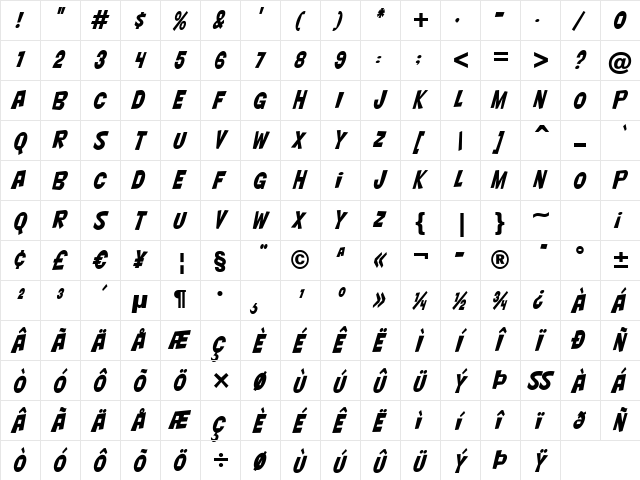
Nightclub BTN Cn Oblique Free Font
Nightclub BTN Cn Oblique
Complete Nightclub BTN Cn Oblique glyph index. Displaying only characters natively supported by Nightclub BTN Cn Oblique font.
Design Context for Nightclub BTN Cn
Nightclub BTN Cn is a composed and adaptable typeface that performs quietly and consistently across a wide range of design contexts. The slanted form adds forward momentum and visual energy.
Pro Tip: Use Nightclub BTN Cn for emphasis, pull quotes, and subheadings where its slanted energy can add rhythm to the layout.